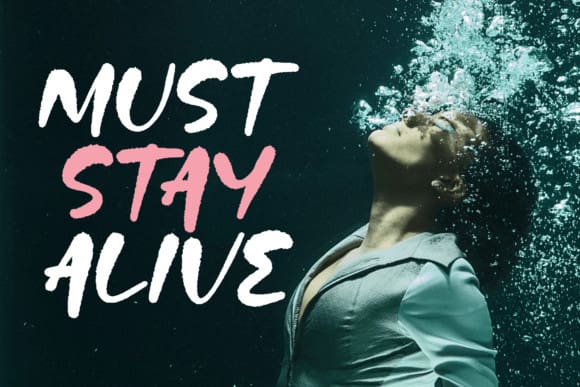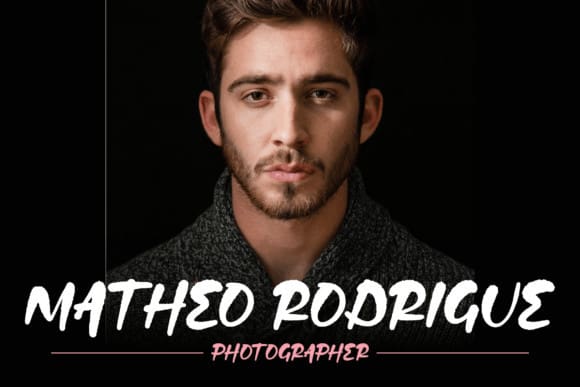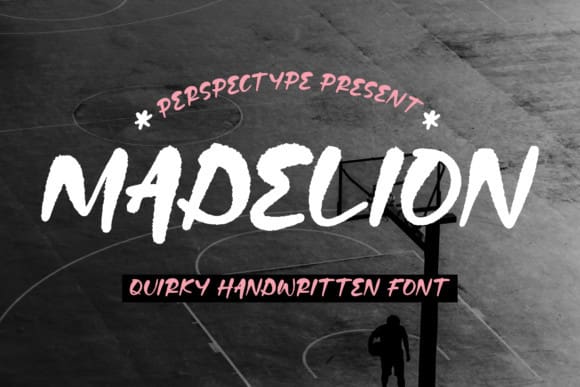
Madelion Brush Font
Madelion Brush Font, is a cute and quirky handwritten font with an incredibly friendly feel. Whether you’re looking for fonts for Instagram or handwritten scripts for DIY projects, it will turn any creative idea into a true piece of art!